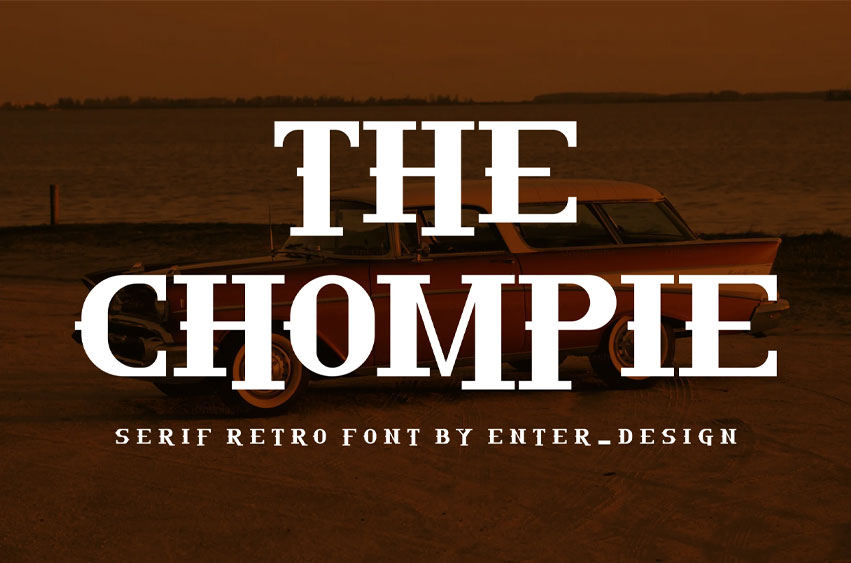
The Chompie Font
The Chompie Font Modern Font is a bold and authentic display font.
The font is suitable for any branding project like logo, esport, and many more. outstanding in a wide range of contexts.